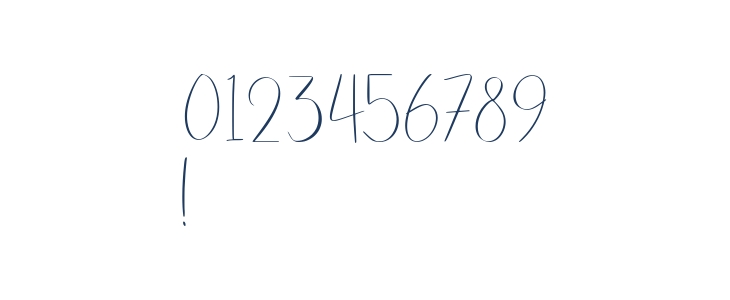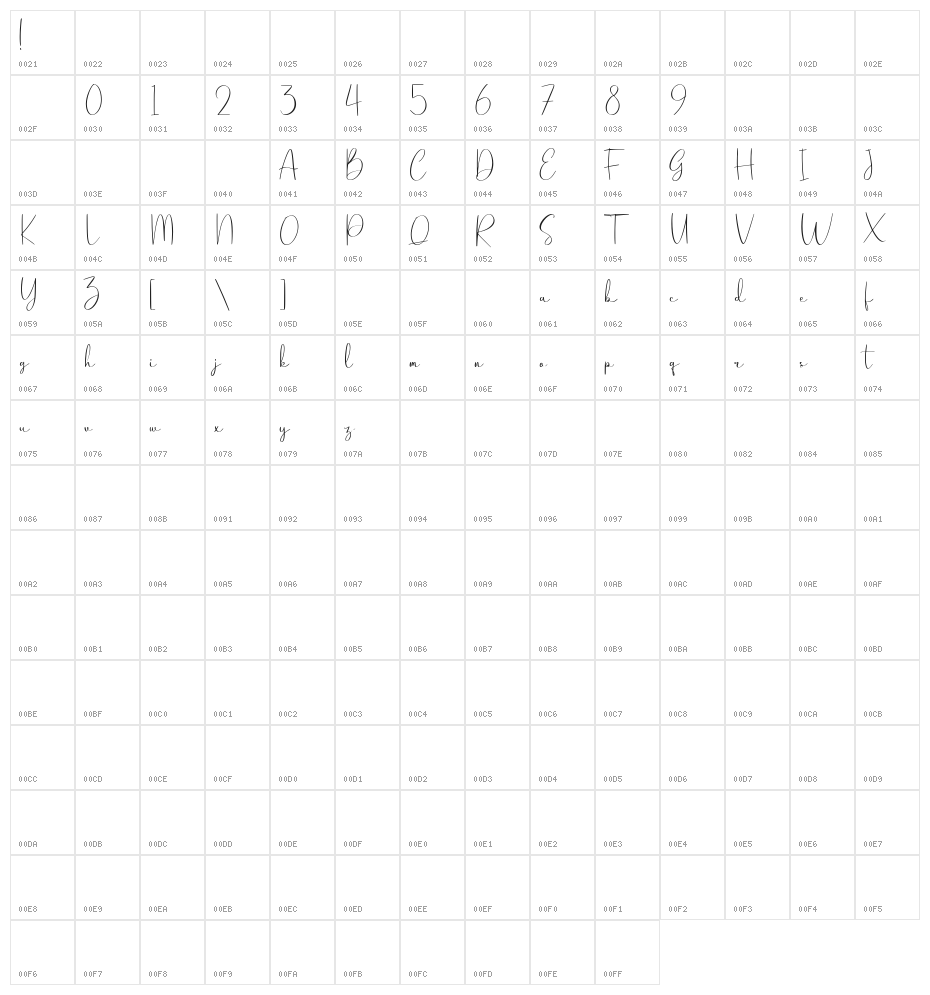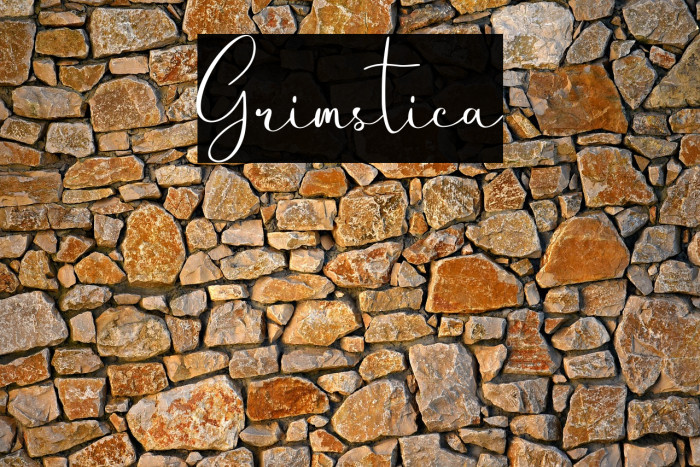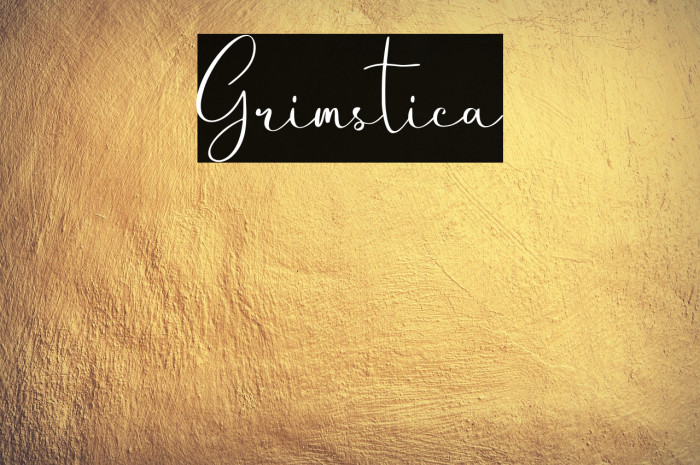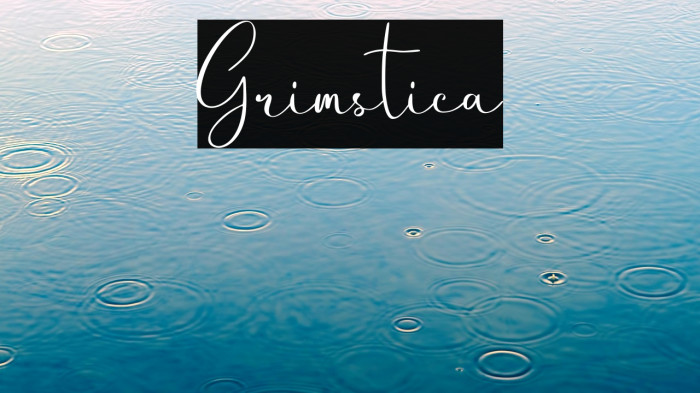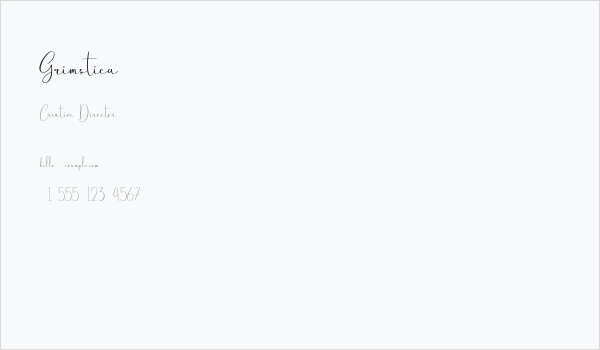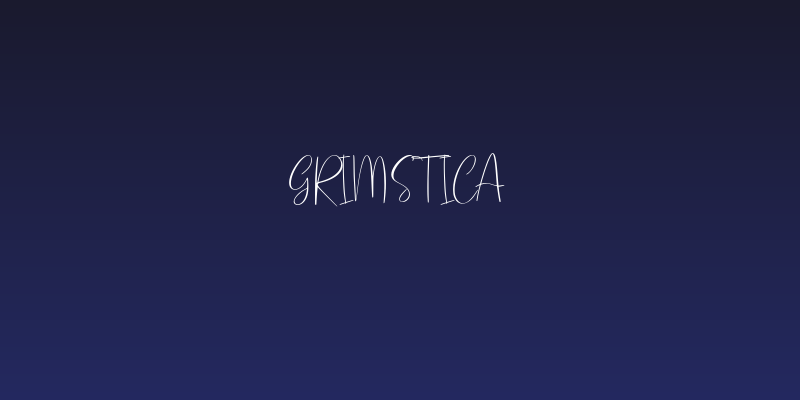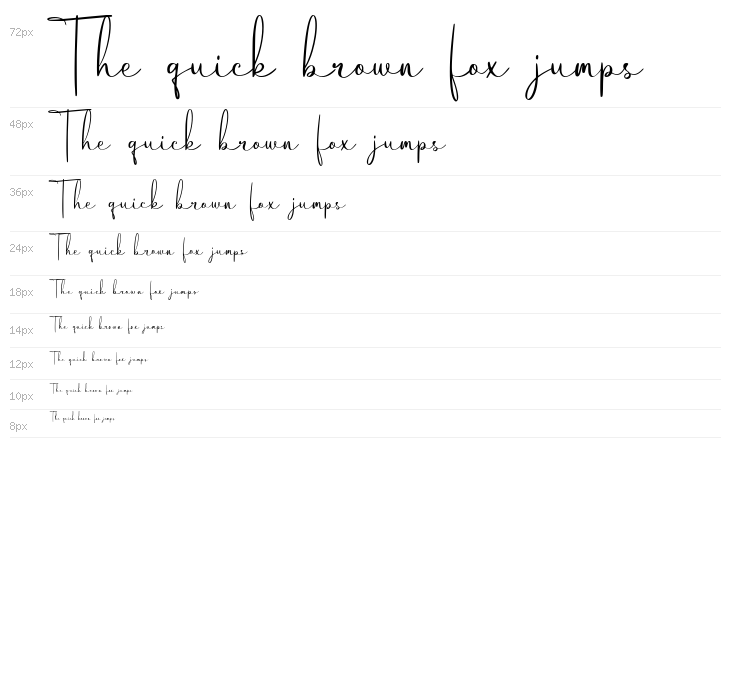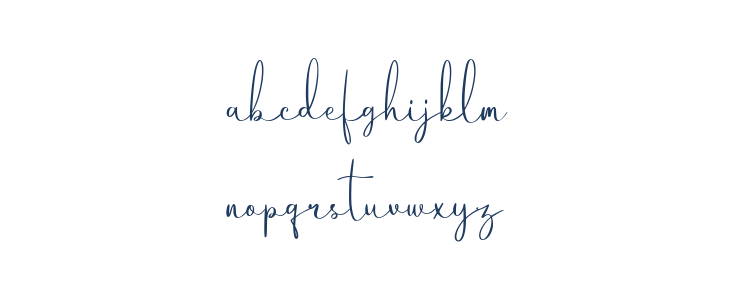
Grimstica Font
Grimstica Description
This font features a whimsical and elegant style with a handwritten touch. The uppercase letters are tall and slender, with a playful, slightly irregular form that adds character and charm. The lowercase letters are more fluid and connected, resembling a cursive script that enhances the font's graceful appearance. The numerals are consistent with the overall style, maintaining the same slender and slightly quirky design. Special characters are integrated seamlessly, adding to the font's versatility. This font is perfect for projects that require a personal and artistic touch, such as invitations, greeting cards, or branding materials.
| Use Case | Headlines, Logos, Artistic projects |
| Proposed Projects | Ideal for invitations, greeting cards, branding materials, and artistic projects. |